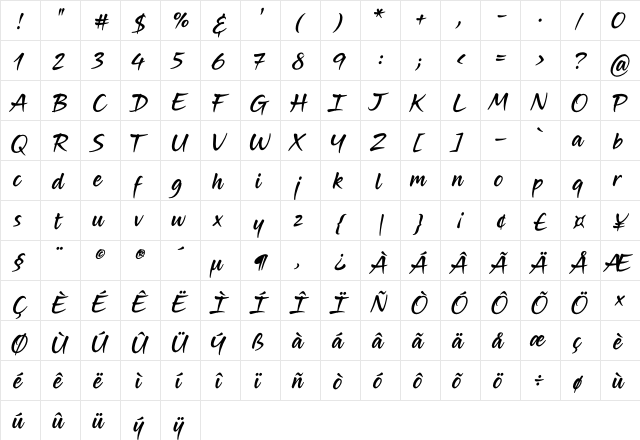
Midnight Drive Two
Design Context for Midnight Drive Typeface
Midnight Drive is a composed and adaptable typeface that performs quietly and consistently across a wide range of design contexts.